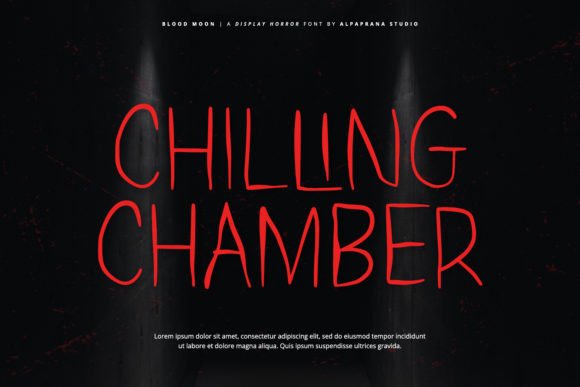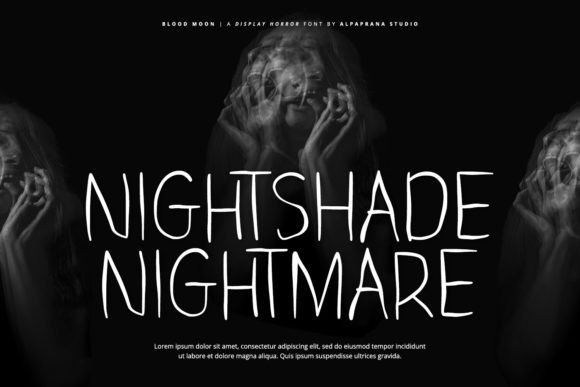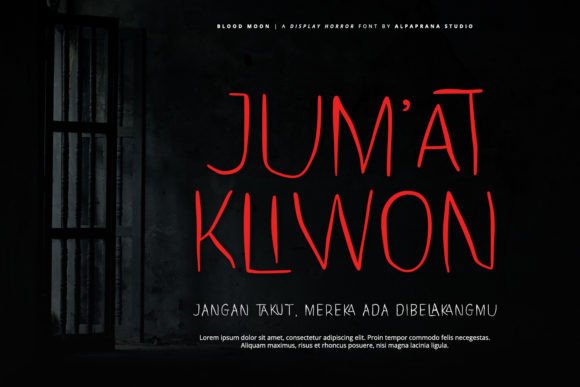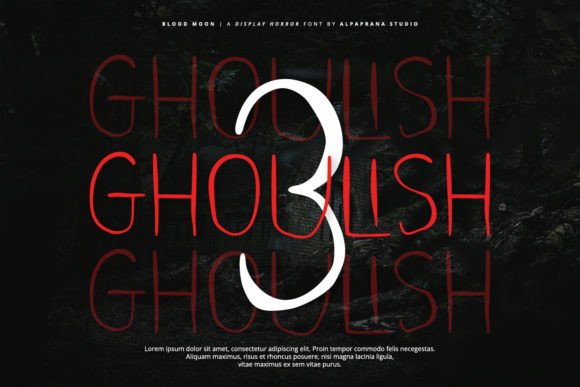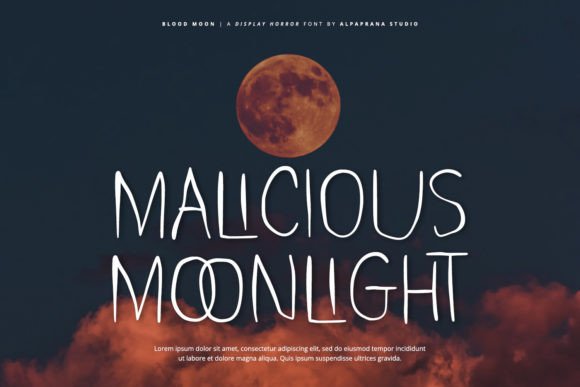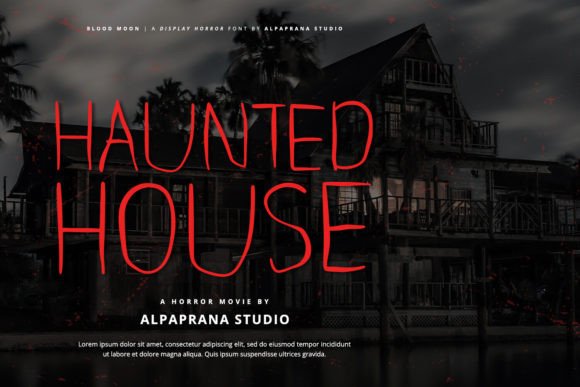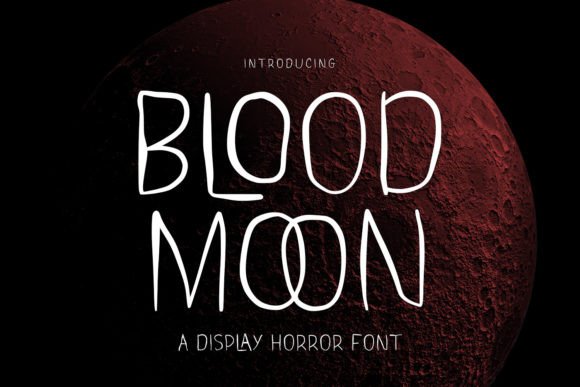
The Blood Moon Font: A Modern Horror Sensation
I’ll never forget the night I stumbled upon the Blood Moon font. I was working on a project for a client who wanted a bold, eye-catching logo that would send shivers down people’s spines. As I scrolled through font after font, nothing seemed quite right – until I saw Blood Moon. Its modern horror vibe and sleek design had me hooked from the very start. In this article, I’ll dive into what makes Blood Moon so special, its uses, and how to make the most of it in your designs.
So, what do I love about Blood Moon? Here are a few highlights:
- ✨ Unique and attention-grabbing: Blood Moon’s modern horror feel makes it perfect for designs that need a bold statement.
- ✅ Versatile: This font can be used for branding, logos, lettering, and so much more.
- ✅ Easy to read: Despite its bold and edgy design, Blood Moon remains surprisingly legible, even at smaller sizes.
Of course, no font is perfect. Here are a few quirks to keep in mind:
- 🤔 Limited use for body text: Blood Moon is a display font, so it’s best used for headlines and titles rather than large blocks of text.
- ⚠️ May not be suitable for all audiences: Given its horror theme, Blood Moon might not be the best choice for designs aimed at younger or more sensitive audiences.
- Experiment with OpenType features like ligatures and stylistic alternates to add more flair to your design.
- Explore the glyphs panel to find unique characters and stylistic alternates to enhance your text.
The story behind Blood Moon’s creation is shrouded in mystery, much like the font itself. Legend has it that a young designer, inspired by the dark beauty of a lunar eclipse, set out to create a font that captured the essence of that moment – a blend of modernity and ancient horror. With Blood Moon, they aimed to give designers a tool to evoke emotion and create a lasting impression.
| What type of projects is Blood Moon best suited for? | Blood Moon is perfect for projects that require a bold, eye-catching font, such as branding, logos, posters, and packaging. |
| Is Blood Moon suitable for body text? | No, Blood Moon is a display font and works best for headlines and titles rather than large blocks of text. |
| Does Blood Moon support OpenType features? | Yes, Blood Moon supports OpenType features, including ligatures and stylistic alternates, which can add more variety to your designs. |
Blood Moon is more than just a font – it’s a design statement. With its modern horror feel and versatile applications, it’s a fantastic addition to any designer’s toolkit. Whether you’re creating a bold logo, an eye-catching poster, or a striking book cover, Blood Moon is sure to leave a lasting impression.